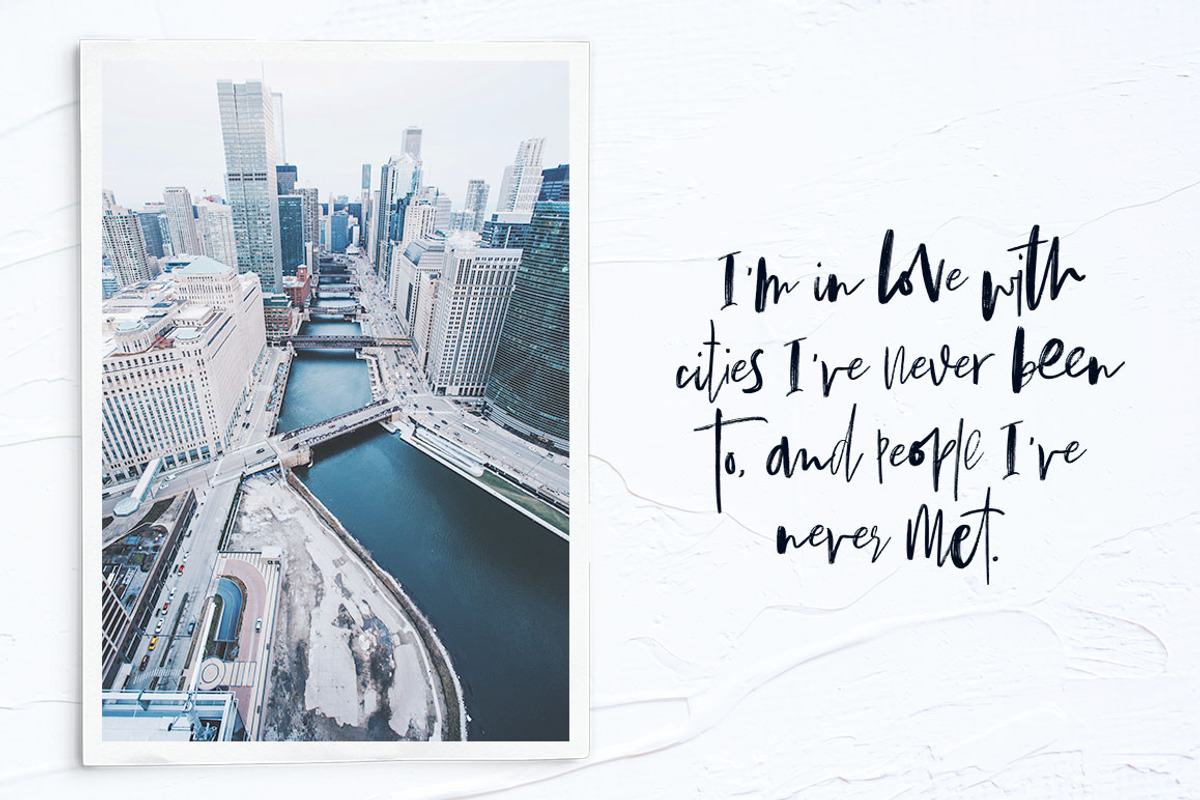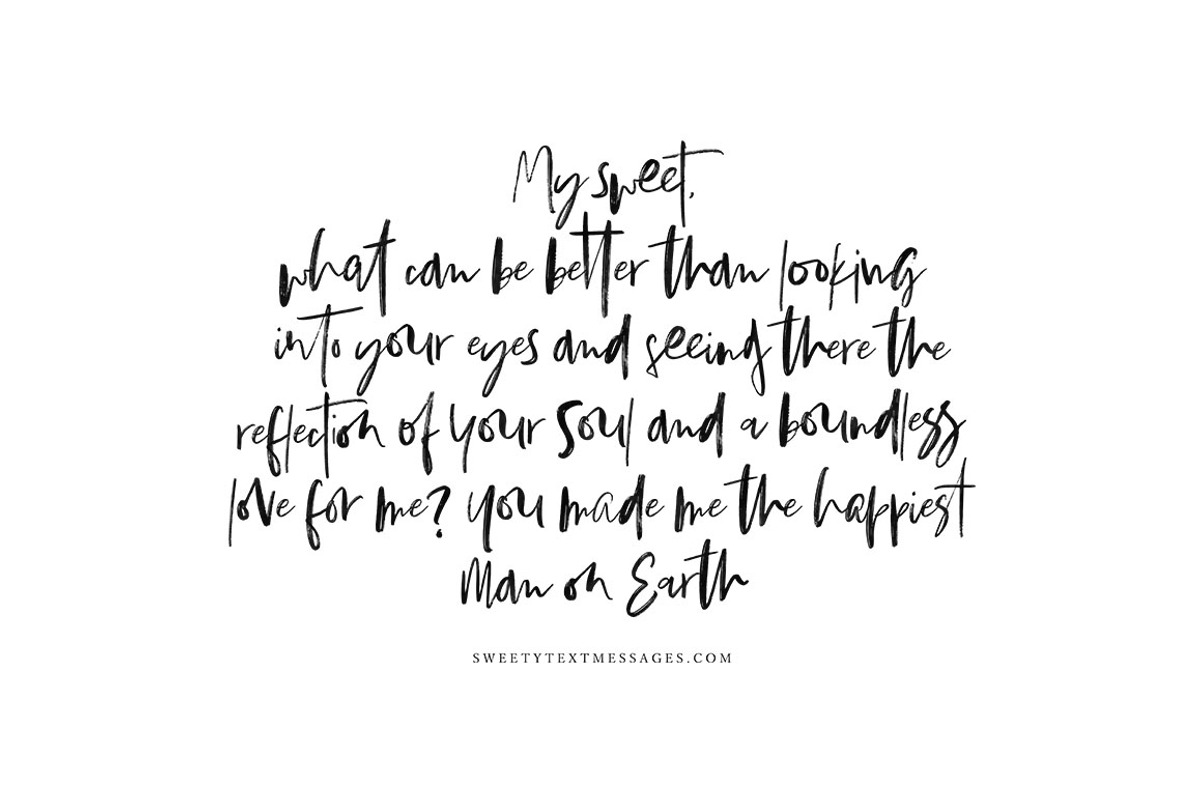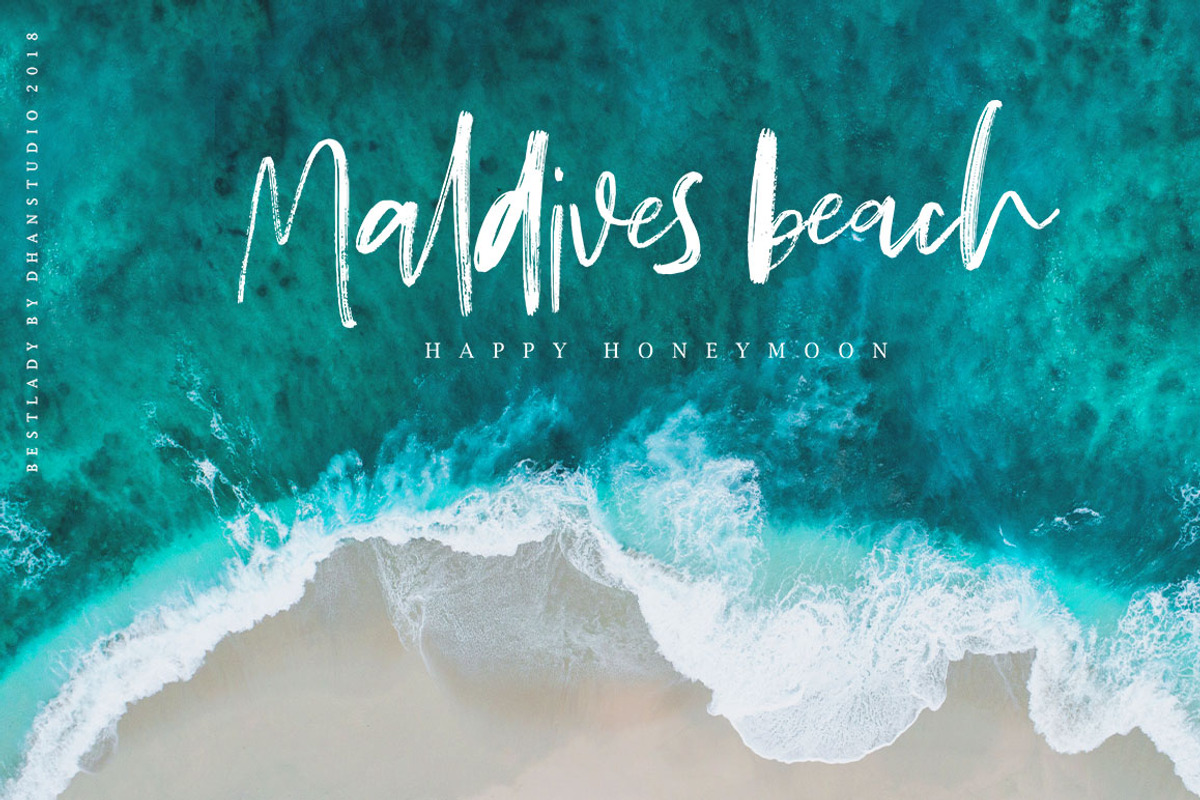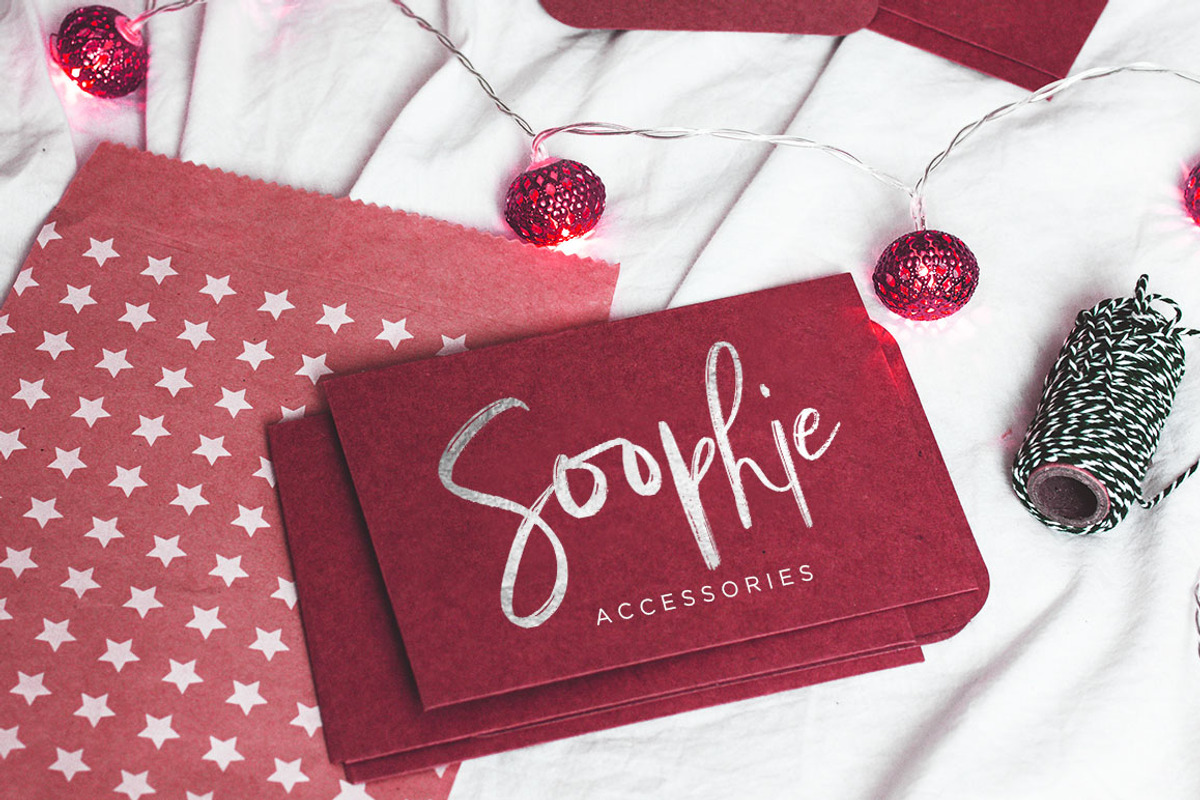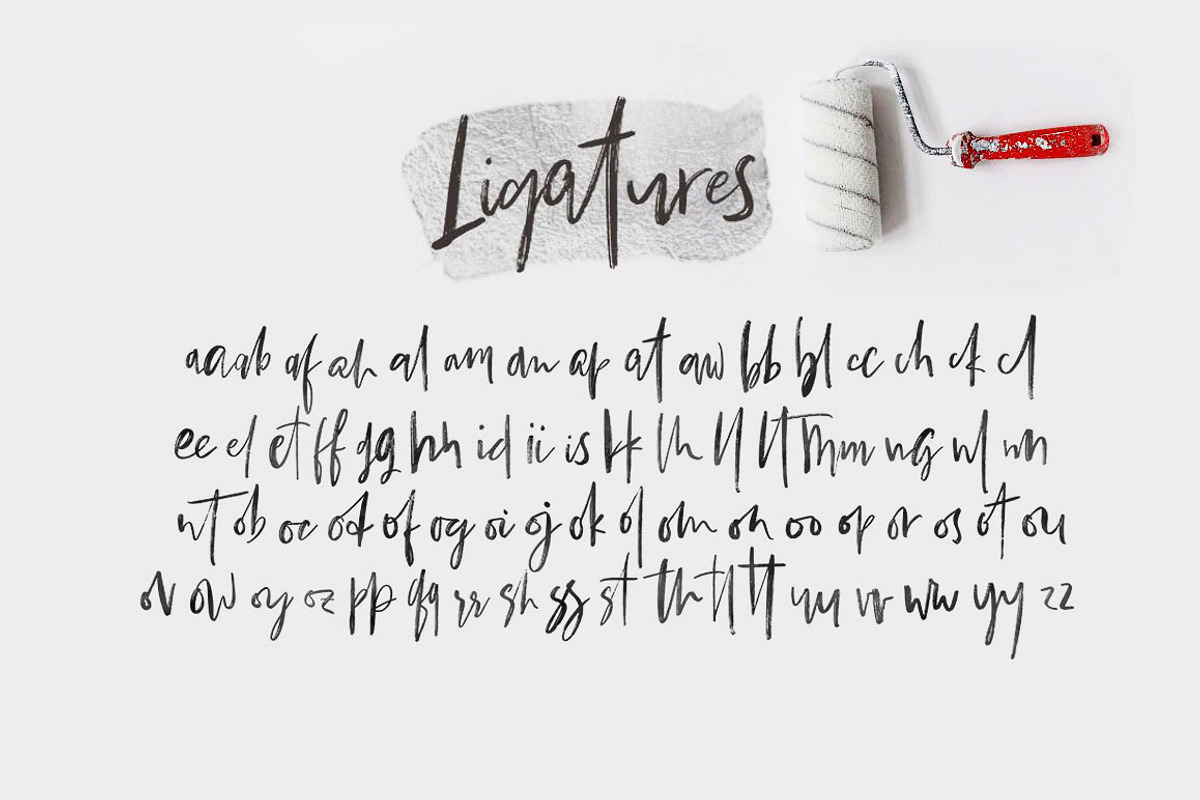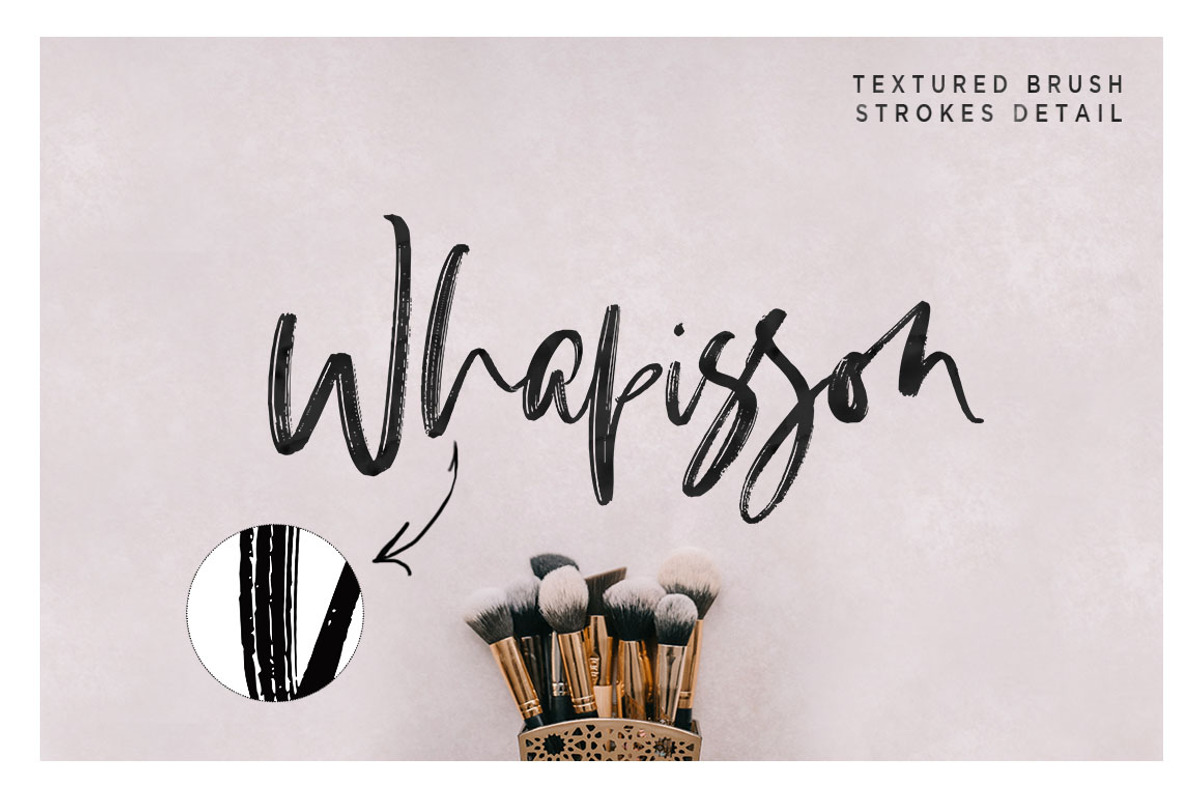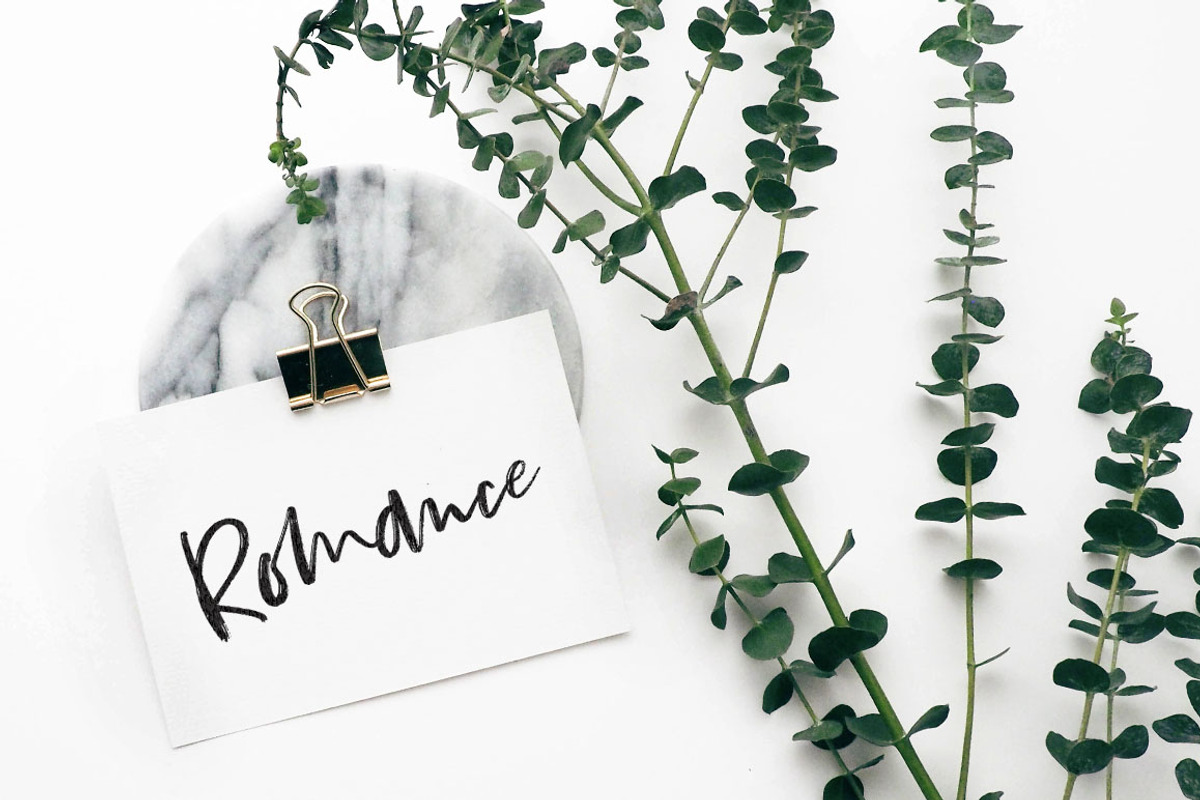
Bestlady Brush Font
Introducing Bestlady is a romantic textured brush font suitable perfectly for invitations, brand projects, logos, greeting cards, news, product packaging, posters blogs, everything including personal charm etc.
This font is alternates all lowercase,also have equipped with 69 ligatures unique and beautiful:
zz yy ww vv uu tt tl th st ss sh rr qq pp oz oy ow ov ou ot os or op oo on om ol ok oj oi og of od oc ob nt nn nl ng mm lt ll lh kk is ii id hh gg ff et el ee cl ck ch cc bl bb aw at ap an am al ah af ab aa
Why Bestlady Brush Font is worth a look
Bestlady Brush Font by Dhan Studio fits naturally into Branding, posters, packaging, typography.